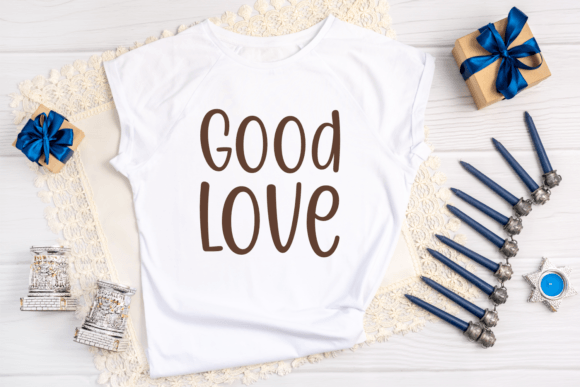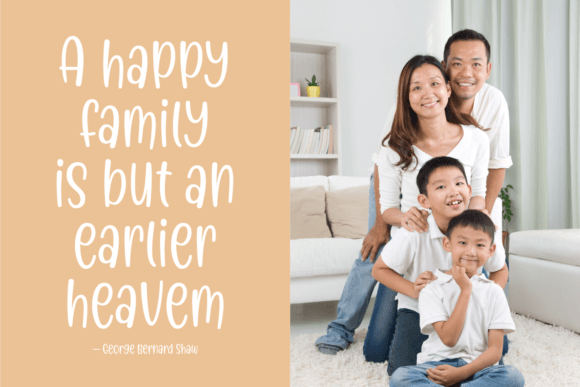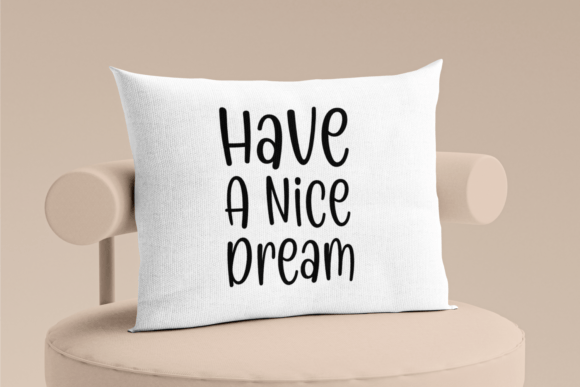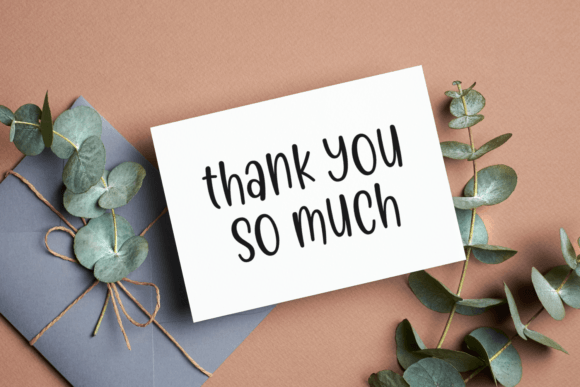
Have you ever stumbled upon a font that instantly sparks a smile and makes you want to create something fun and playful? That’s exactly what happened to me when I discovered the Adorable Friends Font. I was brainstorming ideas for a friend’s birthday party and needed a font that would capture the lighthearted and whimsical atmosphere I had in mind.
That’s when I came across the Adorable Friends Font, a handwritten font that embodies the perfect blend of friendliness and charm. Its versatility makes it suitable for a wide range of designs, from greeting cards and children’s books to logos and posters. What I love most about this font is its ability to evoke a sense of warmth and approachability, making it a valuable asset for designers looking to create engaging and lighthearted content.
Key Features of Adorable Friends Font
- Font Family: Adorable Friends is a unique, hand-drawn font designed for use in digital and print media.
- Character Set: The font includes a comprehensive character set, including uppercase and lowercase letters, numbers, punctuation marks, and special characters.
- Unique Characteristics: Adorable Friends features a distinctive, whimsical design with rounded edges and playful flourishes, adding a touch of personality to any text-based content.
Designer Review: Adorable Friends Font
First of all, let’s talk about what works well with this font. ✨ The Adorable Friends Font is perfect for creating a playful and whimsical atmosphere. The combination of cute characters and friendly vibes makes it ideal for children’s books, party invitations, and social media graphics. The font is also highly customizable, allowing you to adjust the size, color, and style to suit your design needs.
Another plus point is that the font is quite versatile and can be used for both digital and print designs. The characters are well-designed, and the spacing is consistent, making it easy to read and understand.
- ⚠️ The font may not be suitable for formal or professional designs, as it can come across as too childish or playful.
- ⚠️ The font lacks a clear hierarchy of headings, making it challenging to create a clear visual structure in complex designs.
- ⚠️ Some characters may not display correctly on certain devices or browsers, which can be frustrating for designers.
Overall, the Adorable Friends Font is a great choice for designers who want to create fun and engaging designs. While it has some limitations, it’s perfect for projects that require a playful and whimsical touch. With some careful planning and attention to detail, you can create stunning designs that showcase the font’s unique personality.
The Adorable Friends Font is perfect for:
- Baby shower invitations
- Children’s party decorations
- Quirky greeting cards
- Fun social media graphics